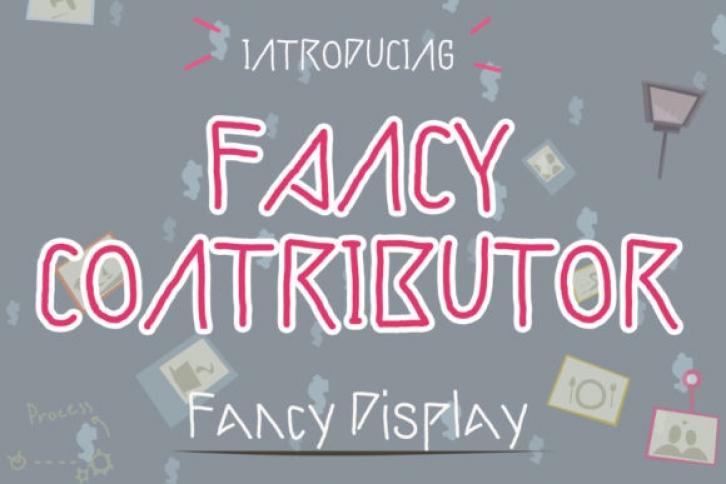
Fancy Contributor is a fun and quirky display font carefully created with a touch of creativity. Whether you’re looking for fonts for Instagram or DIY projects, this font will turn any creative idea into a true piece of art!